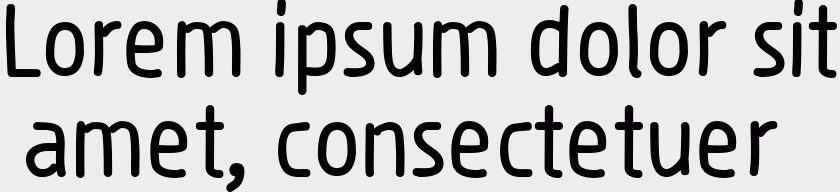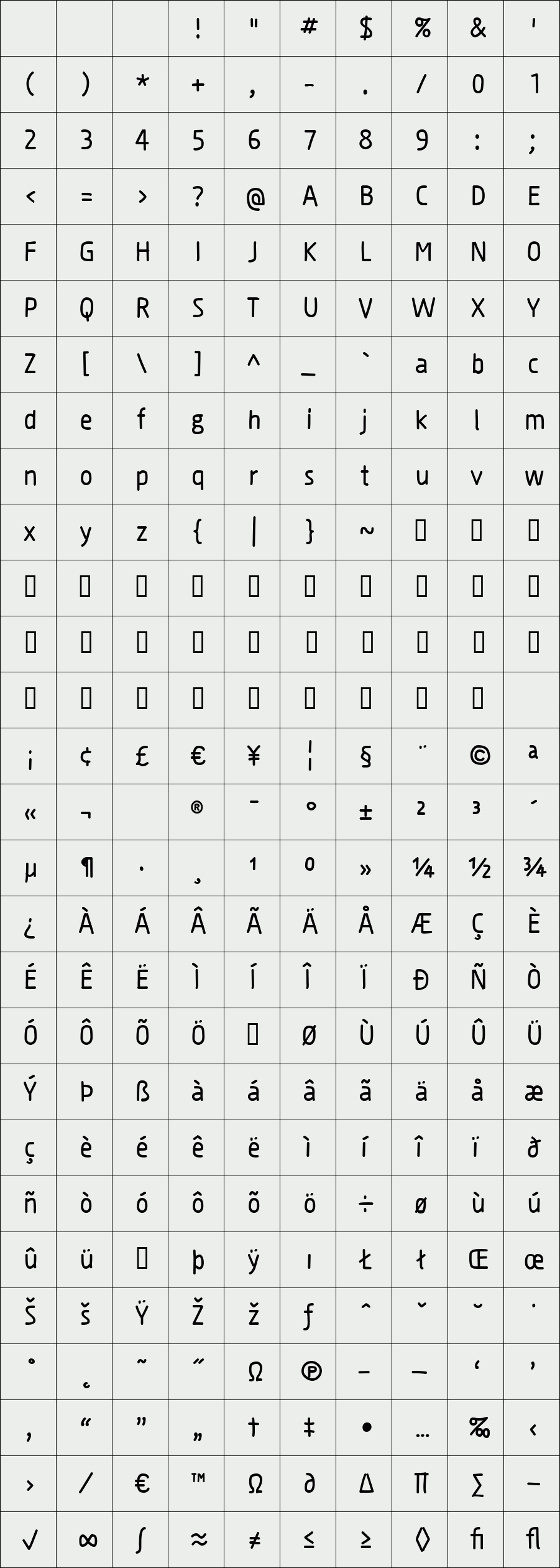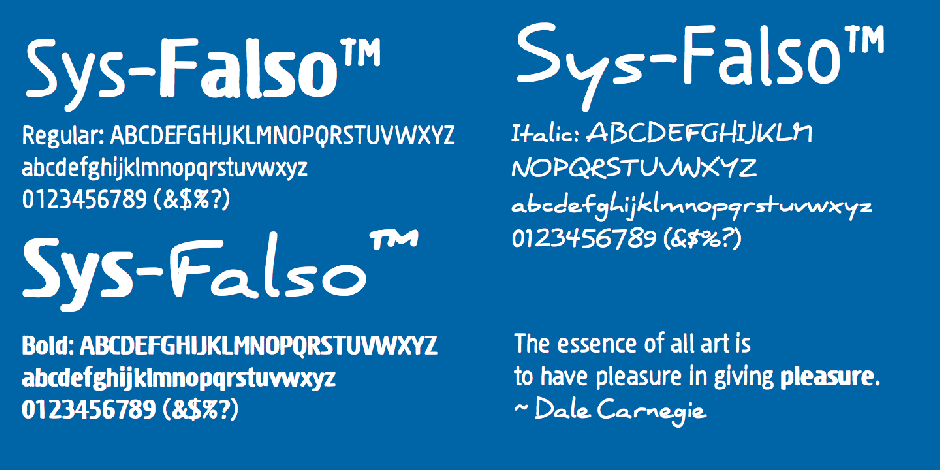
Sys Falso
/ Sys Falso Regular
SysFalso™ is the calligraphic version of the font family Sys™.
Designed to be part of the corporate image of YU SpA, an insurance brokerage firm, in order to archieve a more casual and fun communication.
Designer: Fabrizio Schiavi